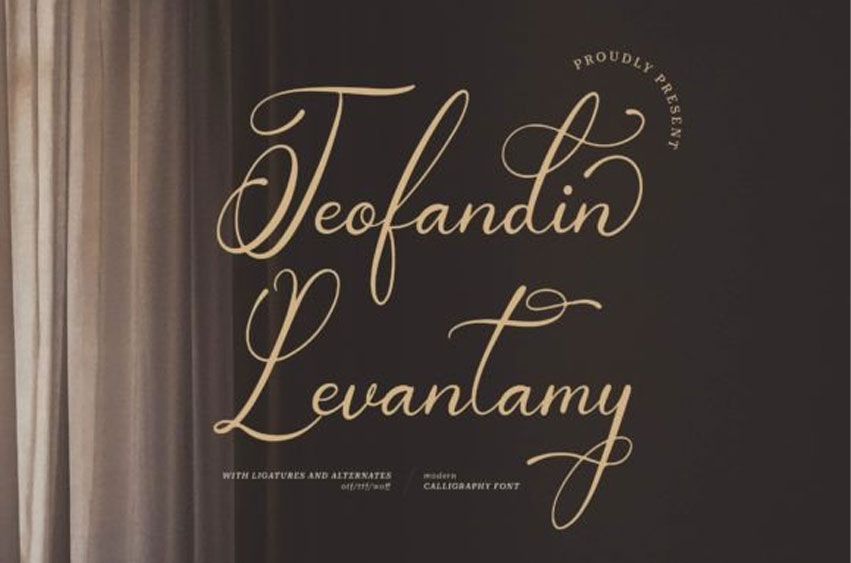
Teofandin Levantamy Font
Teofandin Levantamy Font is a classy signature font designed with elegance in mind. It features alternate characters and ligatures for added style and versatility. Perfect for giving your projects a sophisticated touch, whether it’s for branding, invitations, or any design where a refined look is desired.